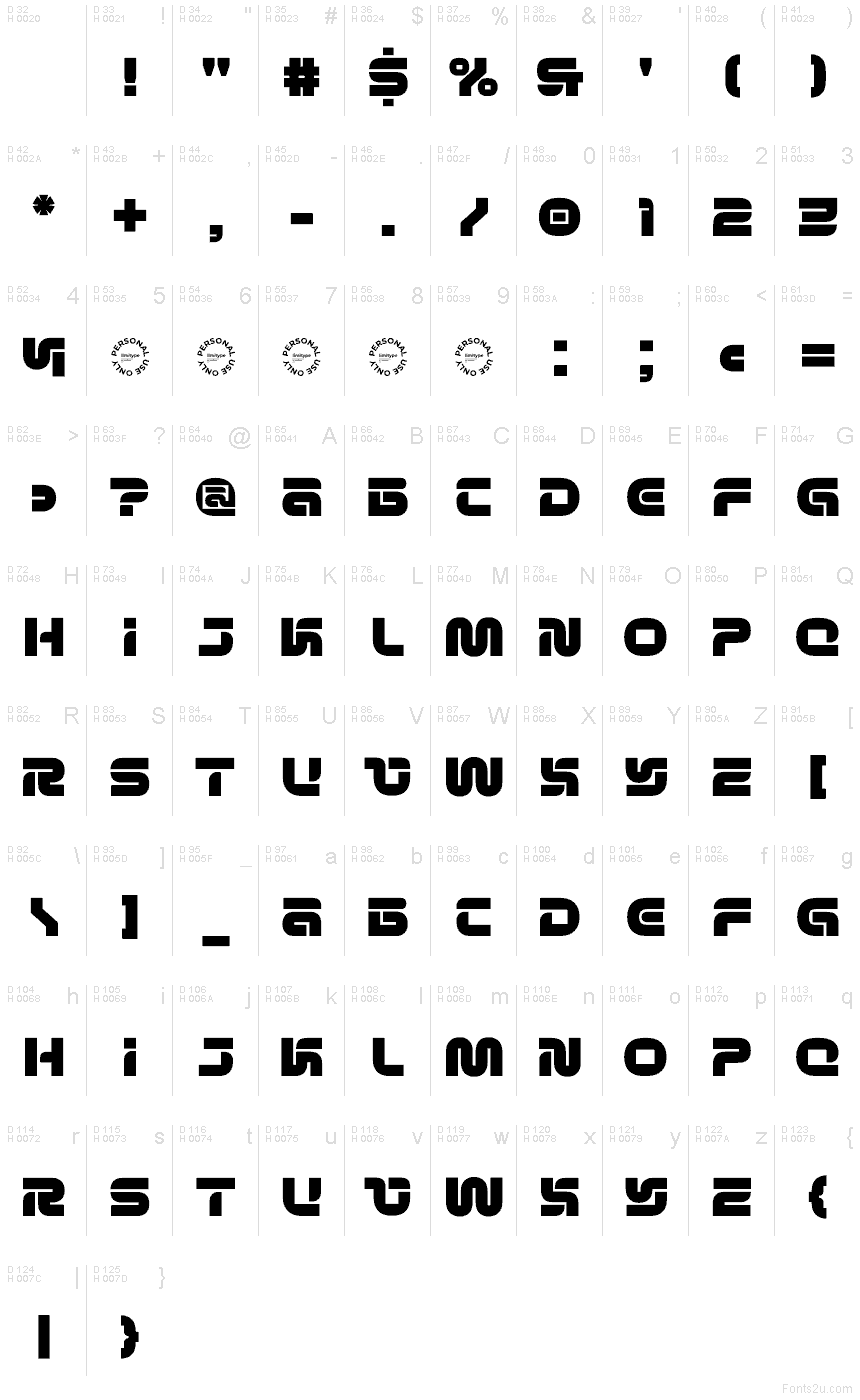
Respro Demo
Respro font by Limitype Foundry is a free retro display font that leans into chunky, rounded geometry with squared counters carved like little windows. Its monoline heft and pillowy corners create a smooth, modular flow, giving headlines a confident, arcade‑era thump without looking clumsy. The rhythm is tight, the shapes feel tactile and almost rubberized, and the negative space pops just enough to keep things legible at big sizes.
Using Respro, you get bold, sign-ready impact that shines on logos, gaming titles, tech event posters, vinyl reissue covers, packaging, and splash screens. This free font loves scale—bump it large and add a hair of tracking for extra punch. Pair it with a clean, light grotesque for body copy to let Respro’s plush forms do the heavy lifting up top.